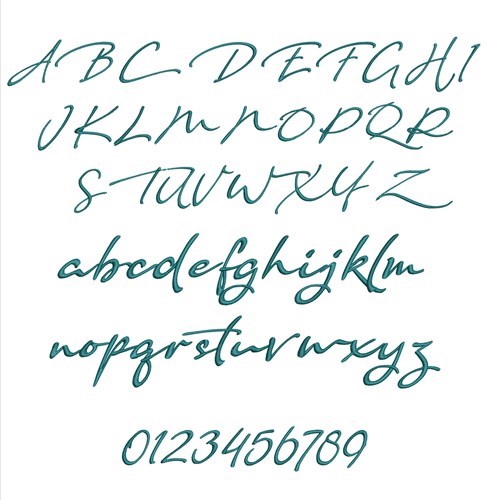
Easy Embroidery is happy to present Zonorinni Embrilliance Font - Elegant Script Lettering - BX font machine embroidery font which has Flowing script machine embroidery font suited for chic projects like personalized napkins and tote bags. Available in BX font, Embrilliance, and more formats. included. If you would like to view more embroidery fonts and alphabets please search our embroidery fonts page.
Zonorinni Embrilliance Font - Elegant Script Lettering - BX font